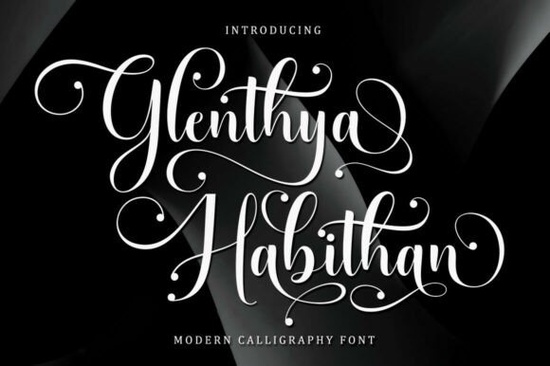
Glenthya Habithan Font is a standout choice for anyone looking to add a touch of elegance and drama to their design projects. This cursive script brings a sense of high-end sophistication, making it ideal for luxury branding, wedding stationery, and more. Whether you're a designer, crafter, or small business owner, this font can elevate your work with its unique style and versatility.
What Makes Glenthya Habithan Unique?
Glenthya Habithan is designed with sweeping, medium-contrast letterforms that give it a distinctive presence. The font features majestic swirling capital loops, high-arching connecting swashes, and delicate circular pearl terminals on the flourishes. These details make it perfect for projects that require a touch of class and timelessness.
It’s not just about looks this font is also highly functional. It works well in both digital and print formats, making it a great option for everything from social media headlines to formal invitations. Its readability ensures that even with all the decorative elements, the text remains clear and easy to read.
Best Uses for Glenthya Habithan Font
This font shines in projects that aim to convey luxury and refinement. For example, independent cosmetic brands can use it to create packaging and marketing materials that feel exclusive and high-end. Wineries often use similar styles for labels that reflect the quality and heritage of their products.
Bespoke wedding stationery suites also benefit from the elegance of Glenthya Habithan. From save-the-dates to thank-you cards, this font adds a personal and sophisticated touch. It’s also a strong choice for custom formal greeting cards, where the visual appeal of the text plays a key role.
For social media, Glenthya Habithan can be used in headlines or captions to draw attention and create a sense of exclusivity. It’s especially effective when paired with bold colors or minimalist backgrounds, allowing the font to stand out without overwhelming the design.
How to Use Glenthya Habithan Effectively
When using this font, it's important to balance its ornate details with the overall design. Overusing it can make text hard to read, so it's best to use it for headings or short phrases rather than long paragraphs. Pairing it with simpler fonts can help create a visually appealing contrast.
Experimenting with different sizes and weights can also enhance the impact of the font. Larger sizes work well for titles, while smaller sizes can be used for subheadings or supporting text. Adding subtle shadows or gradients can further highlight the font’s unique characteristics.
If you're new to using cursive scripts, consider starting with a few sample designs to see how the font interacts with other elements. This will help you understand its strengths and limitations in different contexts.
Whether you're working on a personal project or a professional design, Glenthya Habithan Font offers a unique blend of elegance and functionality. Its detailed styling and versatility make it a valuable addition to any designer’s toolkit.
- Try using the font in different sizes and styles to find what works best.
- Pair it with simpler fonts for a balanced look.
- Test it in both digital and print formats to ensure readability.